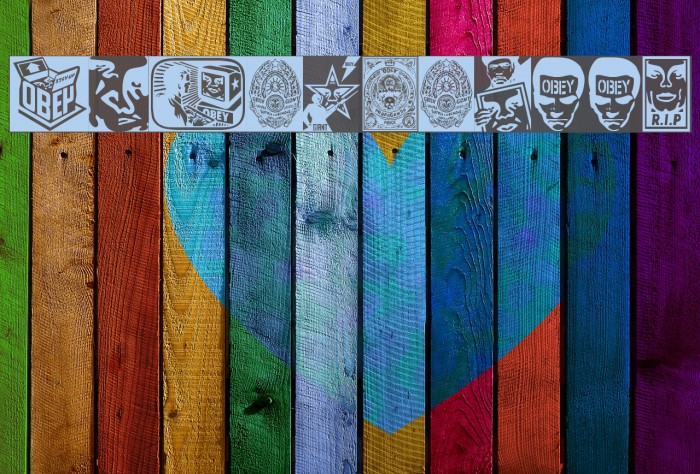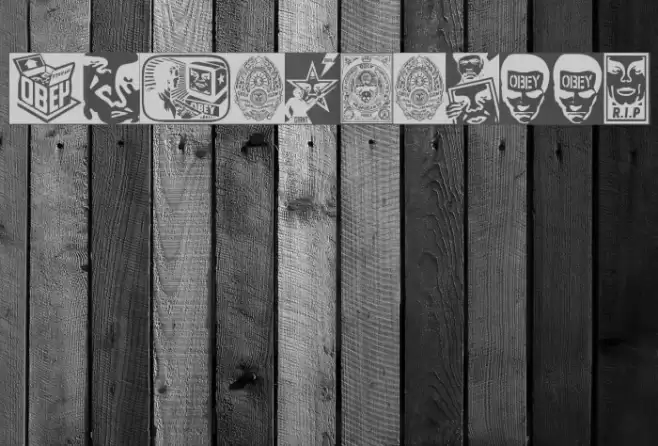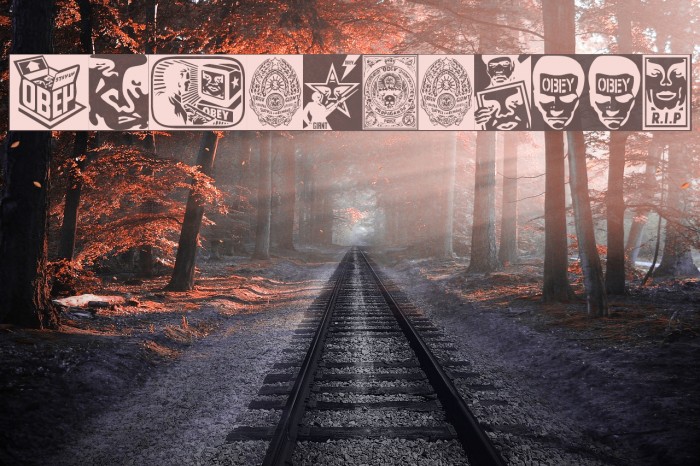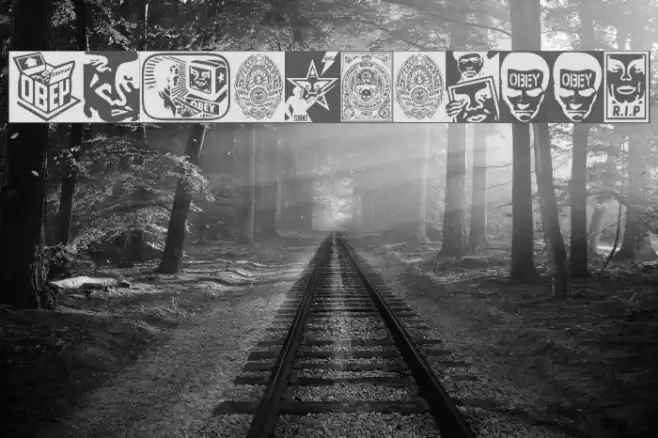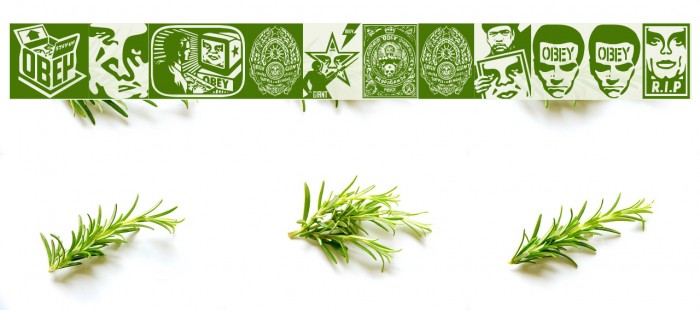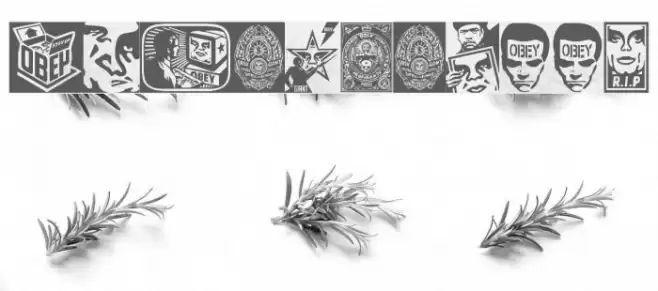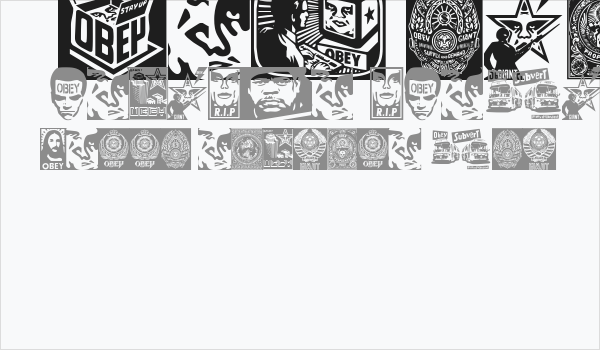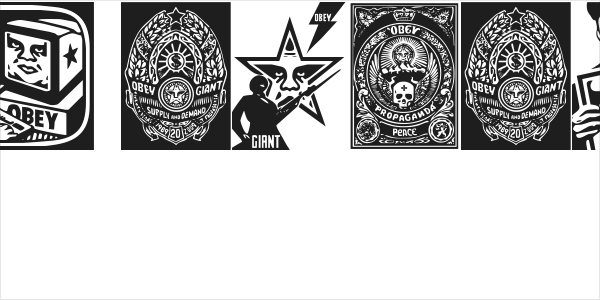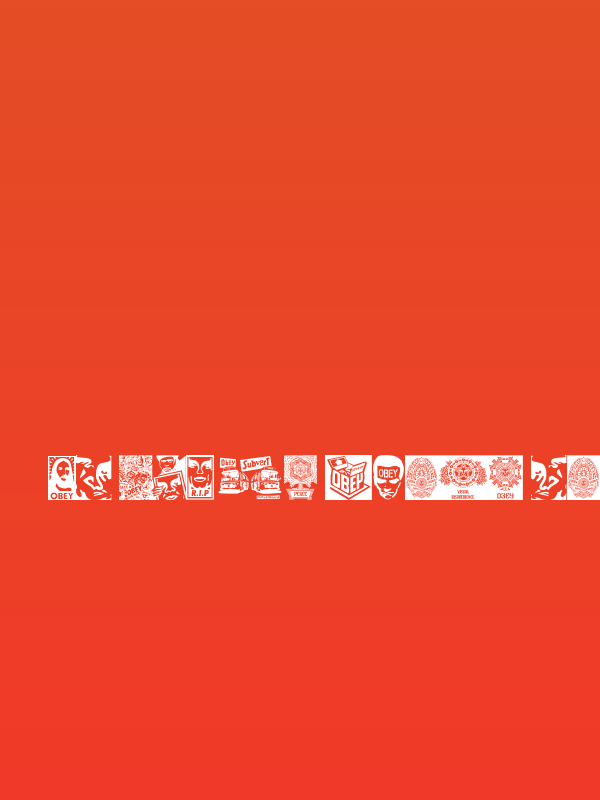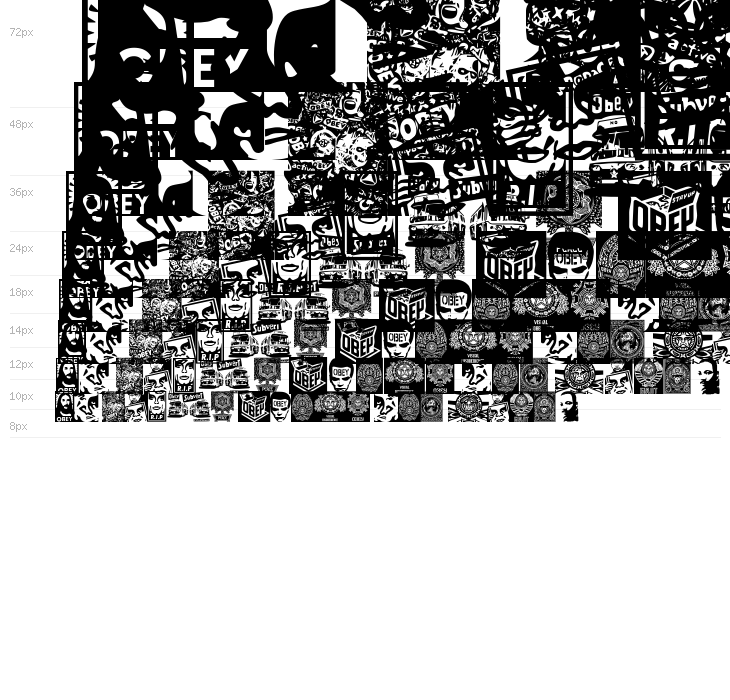
ObeyPotpourri Font
A highly decorative and illustrative font composed of bold, black-and-white graphic images and iconic artwork, each character represented by a unique visual design rather than traditional letterforms.
| Overall Style | Decorative, Urban, Artistic |
| Use Case | Logos, Headlines, Posters, Artistic projects |
| Proposed Projects | Posters, album covers, street art, branding for creative projects, event promotions. |